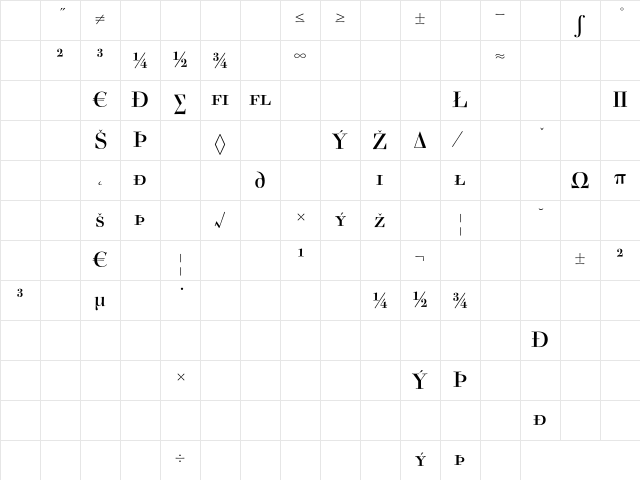
Acanthus SmallCapsExpert
Style: SmallCapsExpert
Acanthus Family
Acanthus SmallCapsExpert
Design Context for Acanthus
Acanthus is a composed and adaptable typeface that performs quietly and consistently across a wide range of design contexts.